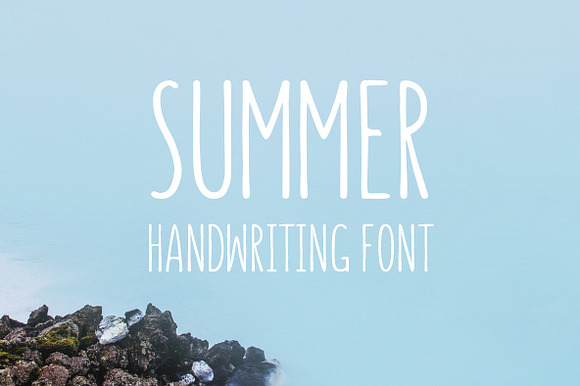
Summer Font
This vibrant typeface is perfect for vacation branding, beach resorts, summer campaigns, tropical merchandise, festival posters, ice cream shops, poolside signage, outdoor events, and sunny lifestyle projects.
What makes this font exciting is its cheerful summer energy combined with vacation-ready warmth, offering designers a bright typeface that captures the essence of endless sunny days while delivering joyful optimism and carefree seasonal sophistication.
The Summer font family includes regular, bold, script, beach, and sunshine variations, providing complete seasonal design solutions for creating uplifting warm-weather visual identities.
Whether you're developing tropical brand experiences or crafting vacation marketing campaigns, Summer Font Free Download brings exceptional seasonal warmth and sunny authenticity to every application. This radiant typeface combines vacation typography traditions with contemporary seasonal design, creating letterforms that evoke happiness and relaxation simultaneously. The font's bright construction and sunshine-ready details make it perfect for brands seeking immediate summer recognition.
Summer Font features carefully crafted sunny styling with authentic seasonal character that conveys genuine vacation spirit. Each character has been designed to reflect summer's endless possibilities, with cheerful proportions and warm elements that enhance the optimistic aesthetic. The font's seasonal qualities make it particularly effective for hospitality brands and outdoor recreation applications.
Professional designers choose Summer Font for projects requiring authentic seasonal credibility and summer atmosphere. Its vacation heritage makes it exceptionally well-suited for travel companies, resort destinations, and lifestyle brands focused on joy and relaxation. The font's versatile summer variations allow designers to control the seasonal intensity, from subtle warm elegance to full tropical celebration.
The complete Summer Font package offers extensive seasonal ornaments and sunny decorative elements that enhance the vacation aesthetic. Advanced brightness features allow designers to create complex summer effects with multiple sunshine-inspired options. This comprehensive seasonal toolkit ensures designers have everything needed to create radiant visual communications that capture the infinite joy of summer's golden warmth and carefree adventure.